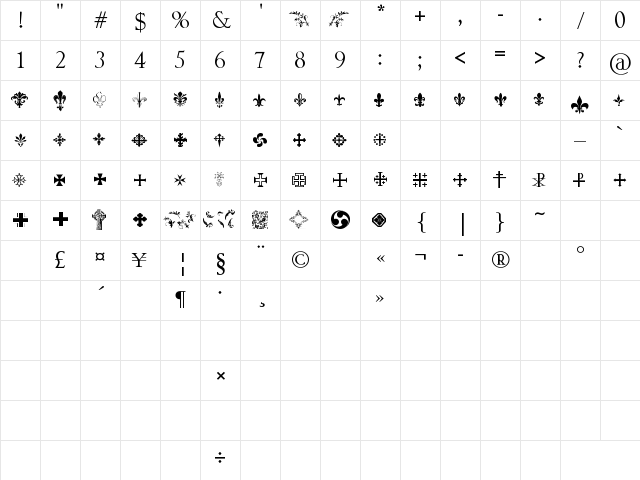
Complete SymbolCrucifix Regular glyph index. Displaying only characters natively supported by SymbolCrucifix Regular font.
SymbolCrucifix is a composed and adaptable typeface that performs quietly and consistently across a wide range of design contexts.